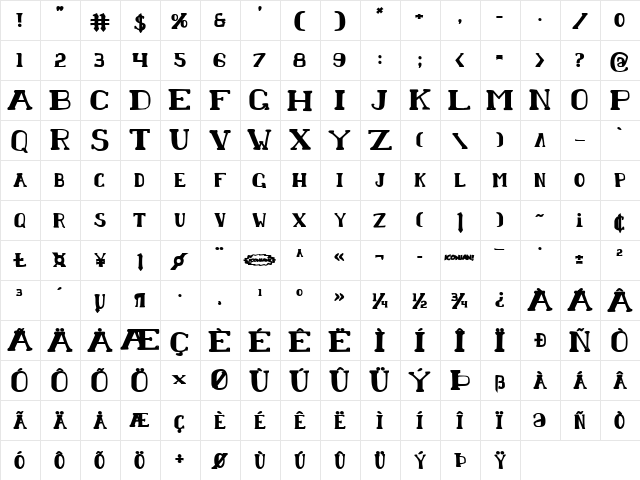
Chardin Doihle Bold Bold
Design Context for Chardin Doihle Bold Typeface
Chardin Doihle Bold is a composed and adaptable typeface that performs quietly and consistently across a wide range of design contexts. The heavy weight commands attention and anchors typographic hierarchies.